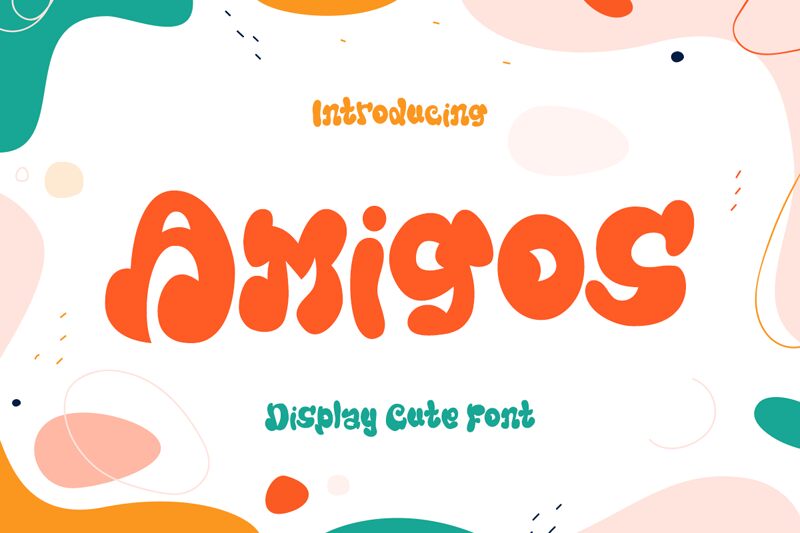
Amigos
Amigos, designed by Kong Font, is a display typeface that exudes a playful and groovy aesthetic. Its bold weight commands attention while its fluid, curvaceous lines inject a sense of fun and retro flair into any creative endeavor. The font's smooth contours and dynamic flow give it an energetic vibe that's reminiscent of the carefree spirit of the 60s and 70s.
Perfect for headers, logos, and posters that need to make a statement, Amigos offers designers an opportunity to infuse their work with personality. Whether it's branding for a funky startup or the centerpiece of an eye-catching event flyer, this font's impactful style ensures it stands out in visual communication.
Amigos is more than just letters on a page; it’s a design element that can set the tone for your entire project. Its suitability stretches across digital graphics to print media, thriving wherever a touch of whimsy and nostalgia is needed. Embrace the boldness of Amigos in your next design project and watch as it turns ordinary text into an extraordinary experience.